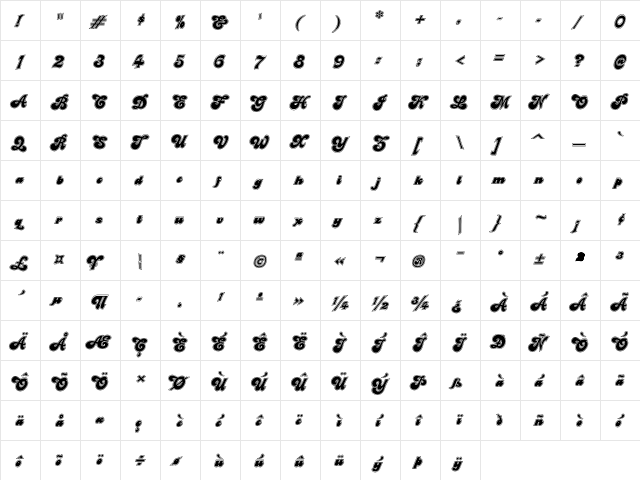
BenguiatCharisma Contour Font Preview
BenguiatCharisma Contour
Design Context for BenguiatCharisma Typeface
BenguiatCharisma is a composed and adaptable typeface that performs quietly and consistently across a wide range of design contexts.